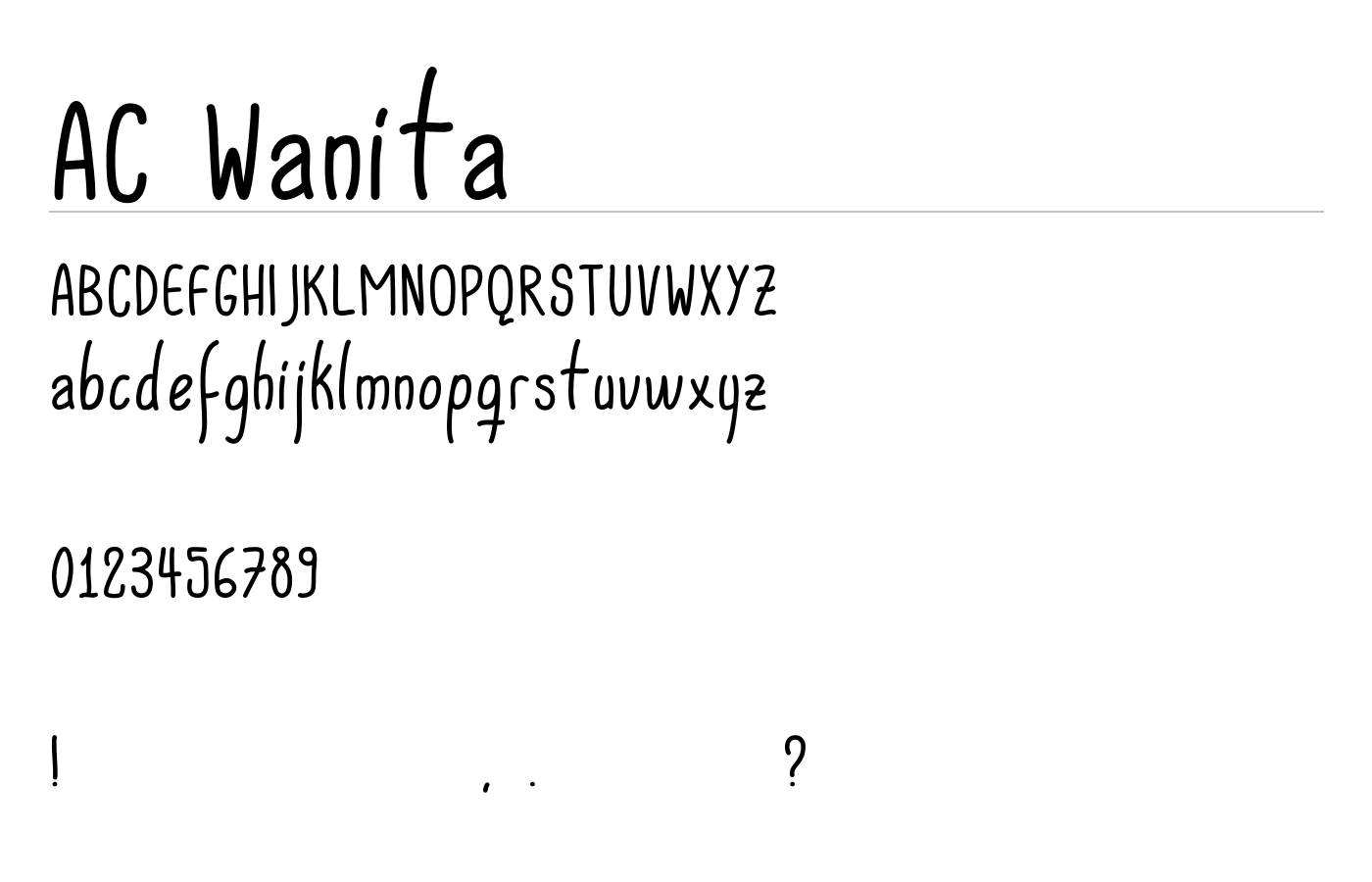
AC Wanita is a playful and casual handwritten sans serif font with a whimsical, slightly tall and narrow appearance. Its irregular stroke widths and quirky letterforms give it a friendly and informal personality, making it ideal for creative projects, children’s materials, and casual branding. This font works well in invites, posters, and digital content where a personal, approachable vibe is desired.
AC Wanita Font
About AC Wanita Font
| Designer | Adrian Candela |